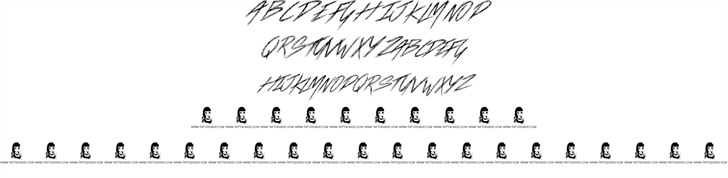
Free Loads Of Love Font
Take a look at this inspiring free loads of love font. This free typeface file was found from the amazing source called Font Space. Easily amaze your audience with this beautiful font and make your graphic designs pop up from the crowd.